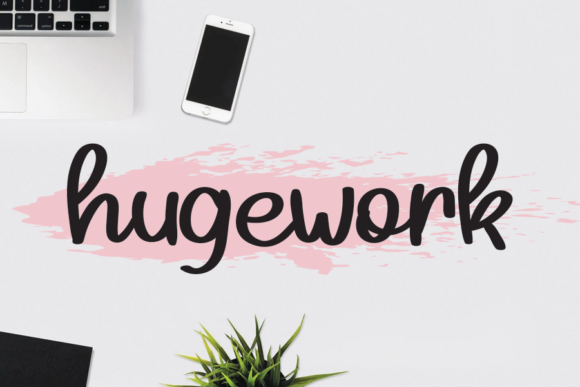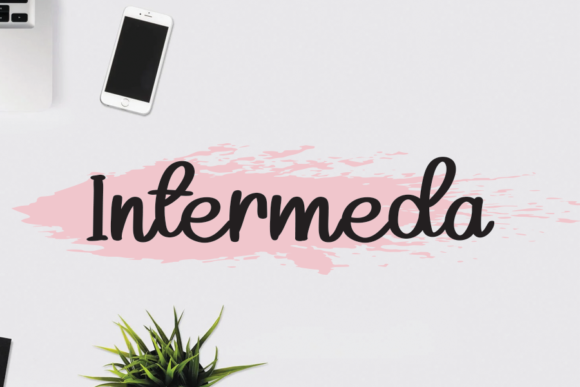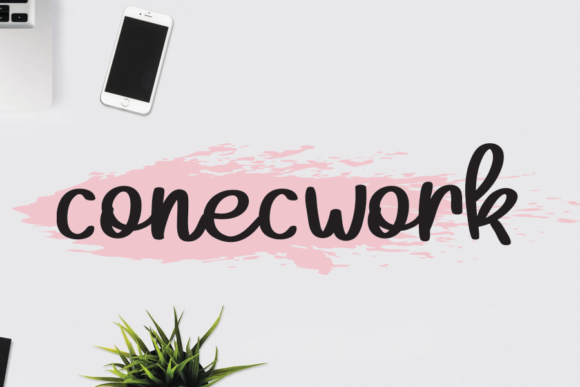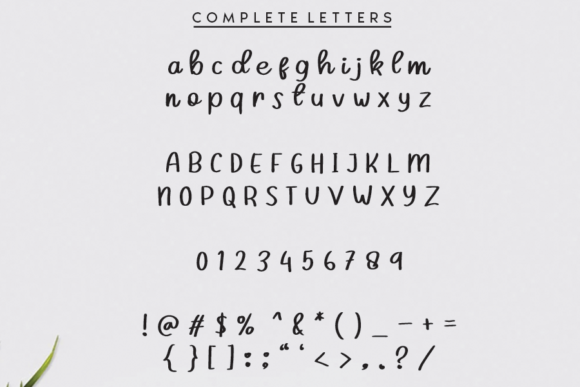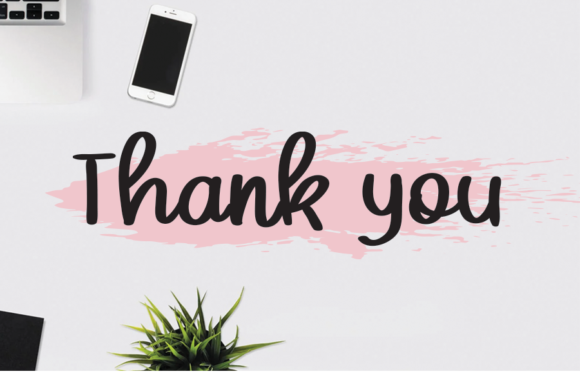
Hugework Font
About Hugework Font
Hugework is a sweet and friendly handwritten font. Its natural and unique style makes it incredibly fitting to a large pool of designs. The only limit is your imagination!